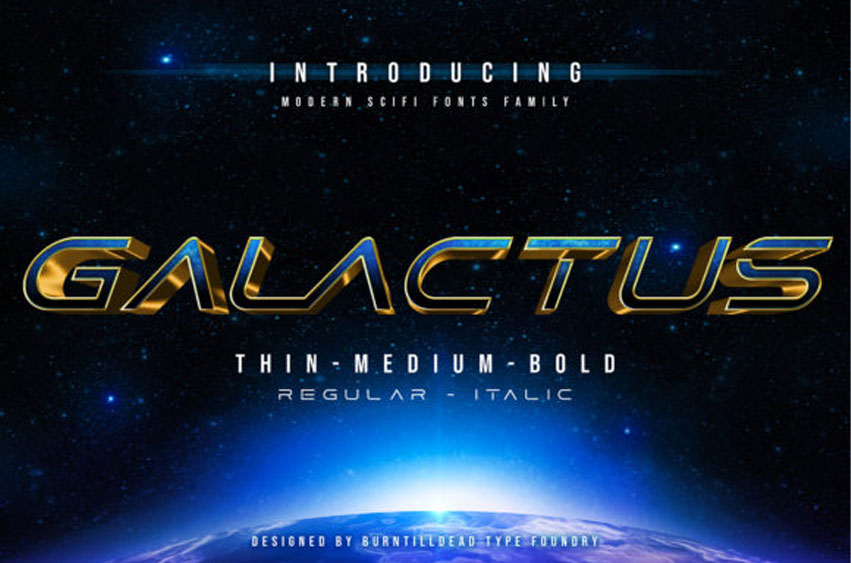
Galactus Font
Galactus Font is a great display font. It is modern and has a unique futuristic look.
Use Galactus for creating e-sports logos, aerospace games, t-shirt designs and much more!